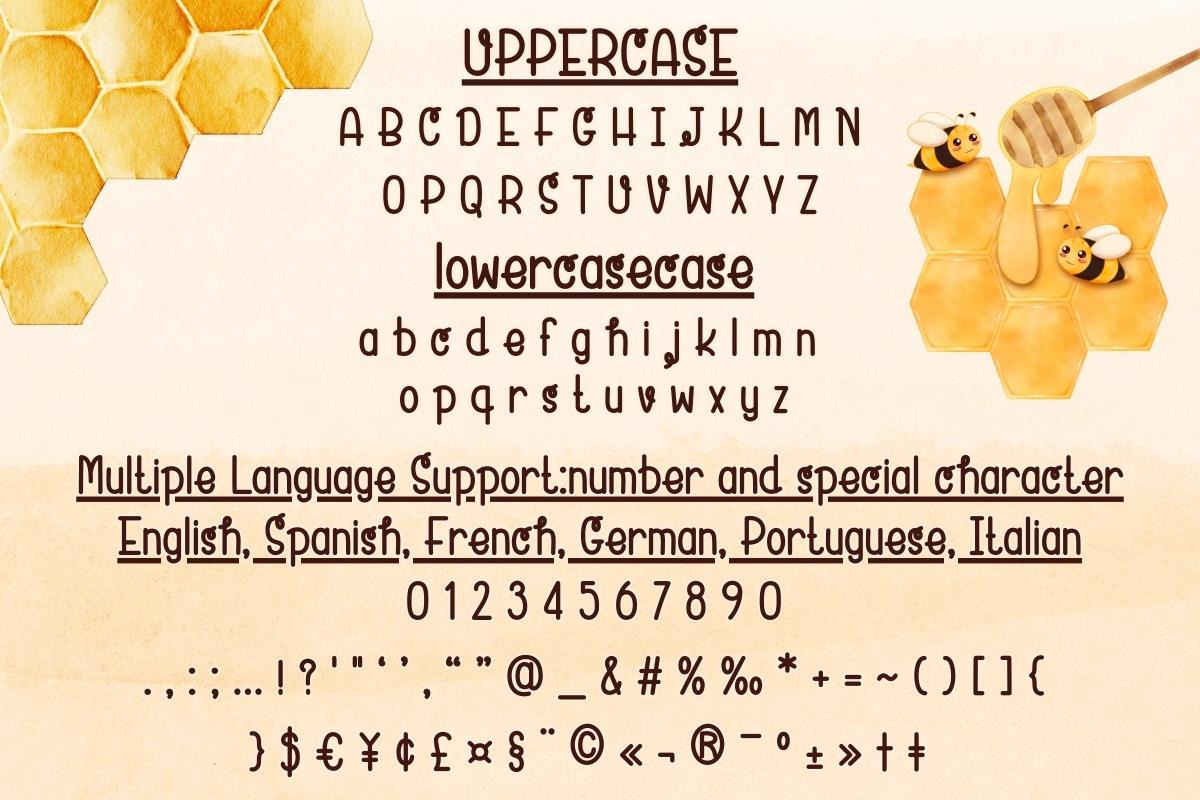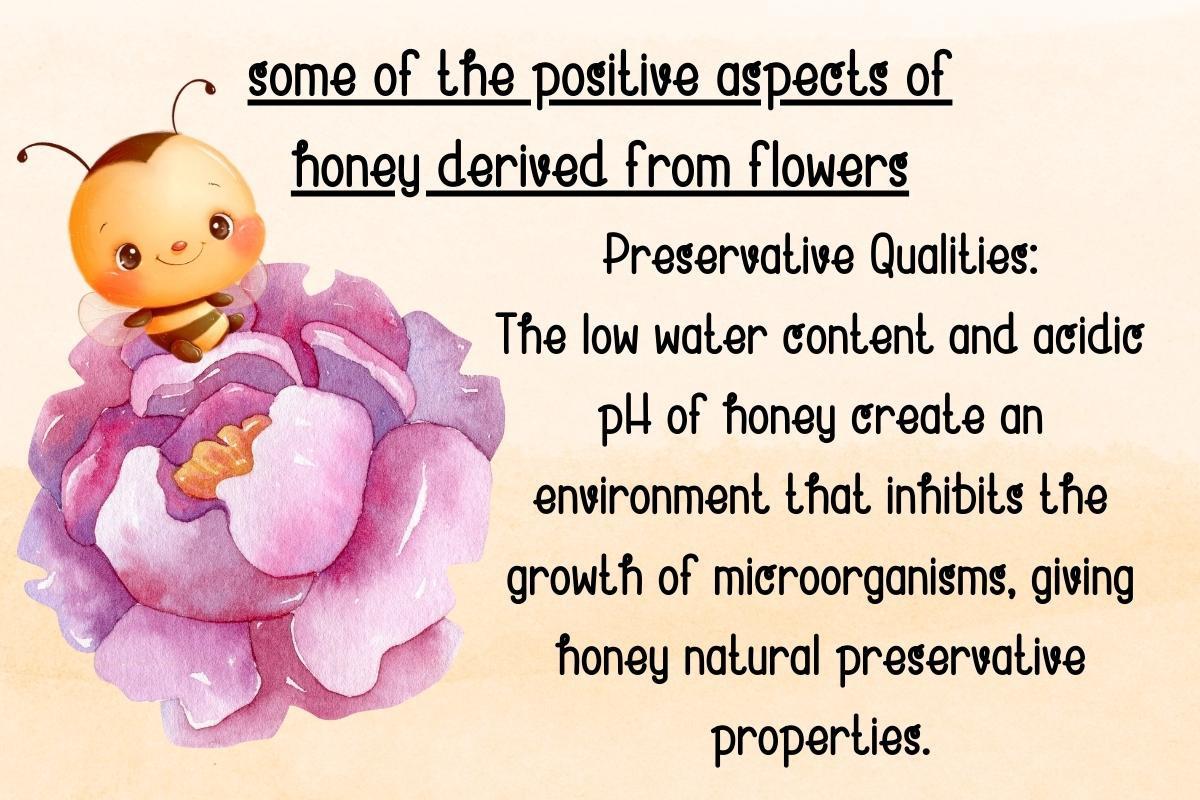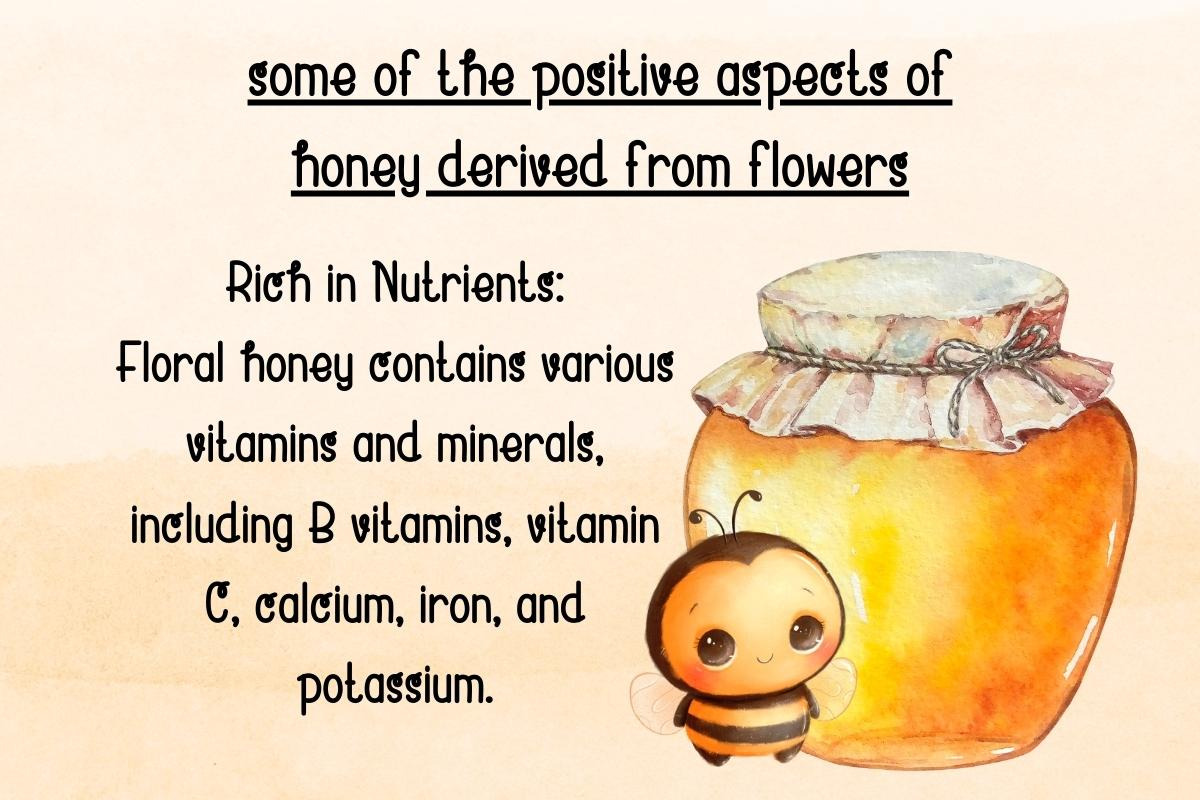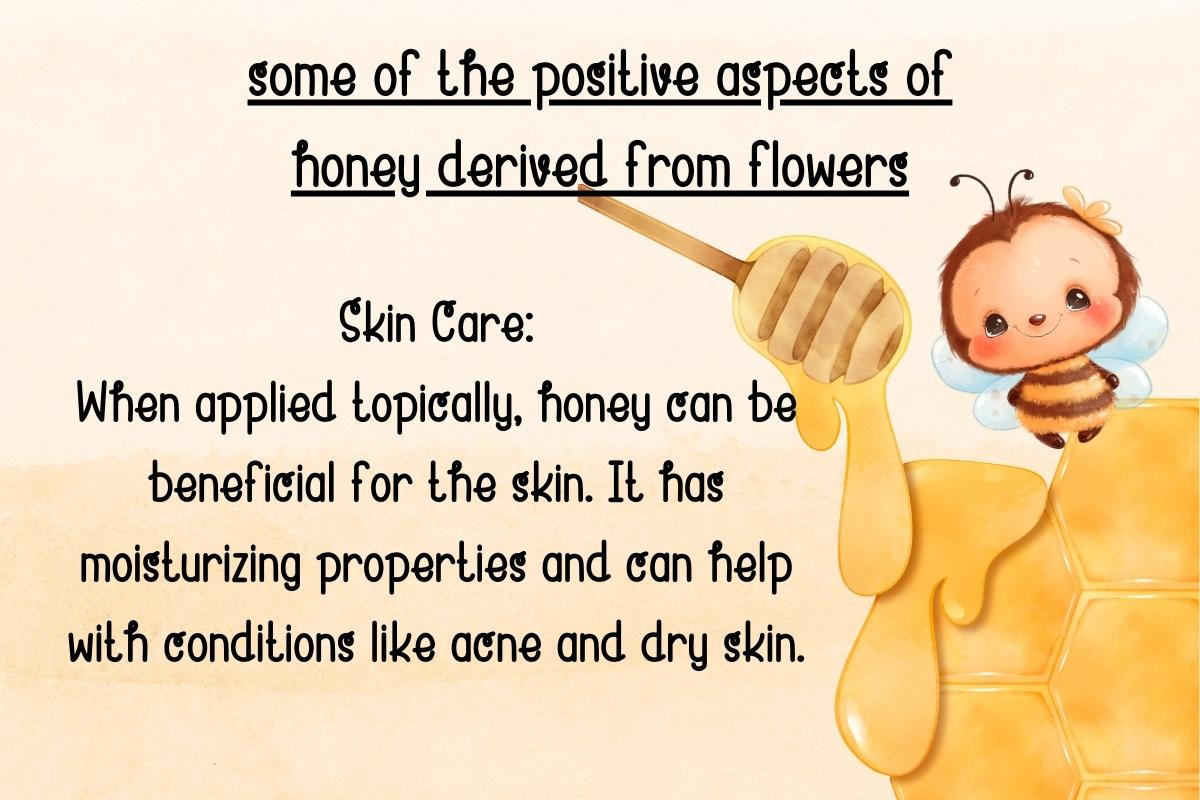
Honey Amber - Handwritting
🌟 Dive into the sweet world of text with "Honey Amber" font! 🍯 Let your words dance in a delightful embrace of warmth and charm. Each letter is a drop of golden sweetness, crafting a symphony of cuteness. Transform your text into a sugary masterpiece—because your words deserve to be as sweet as honey! 🐝✨